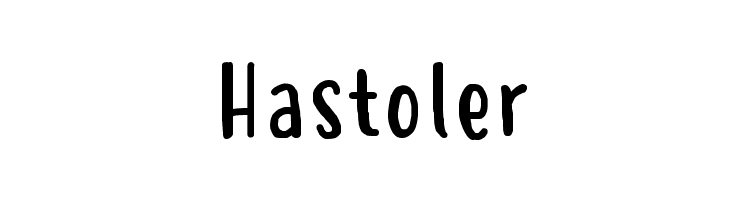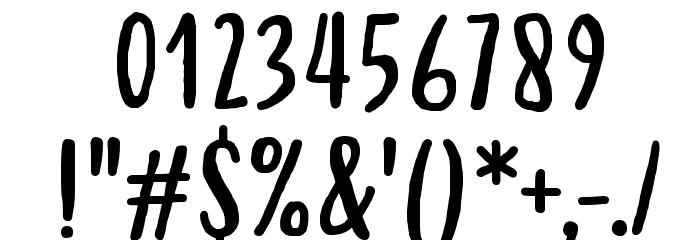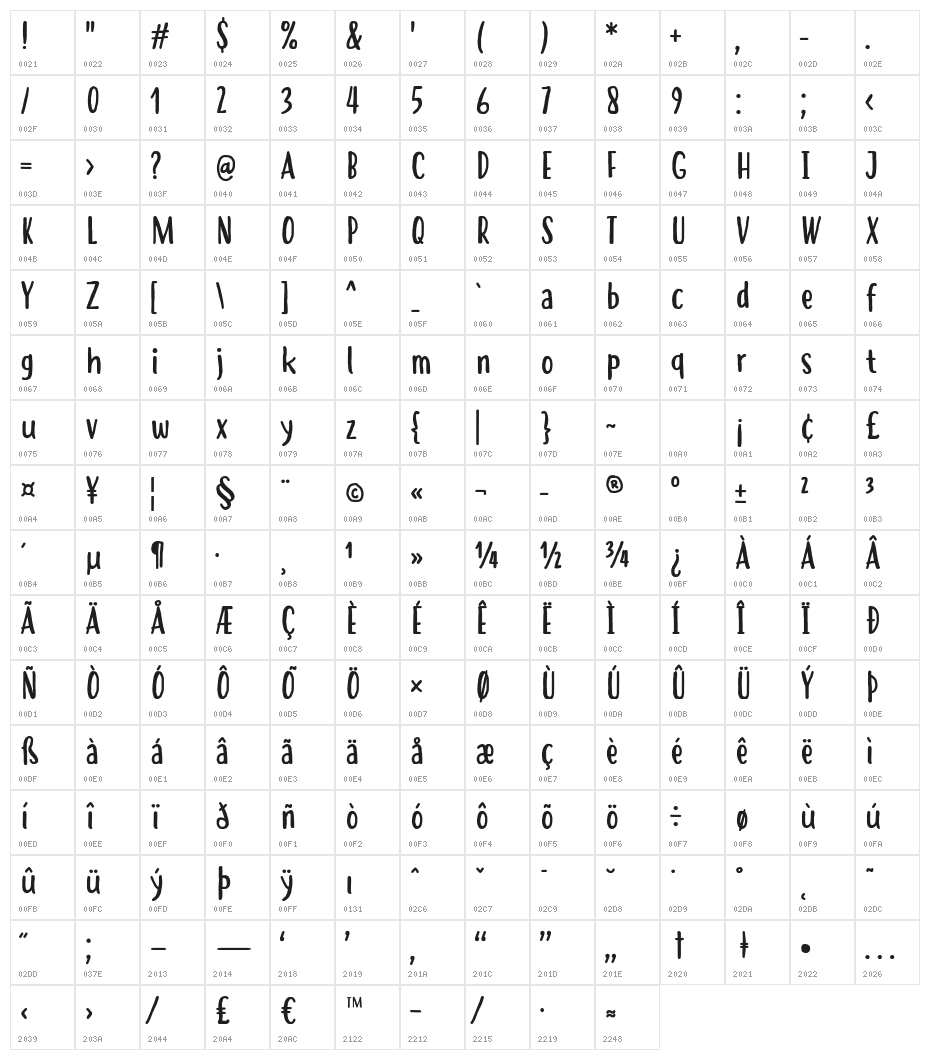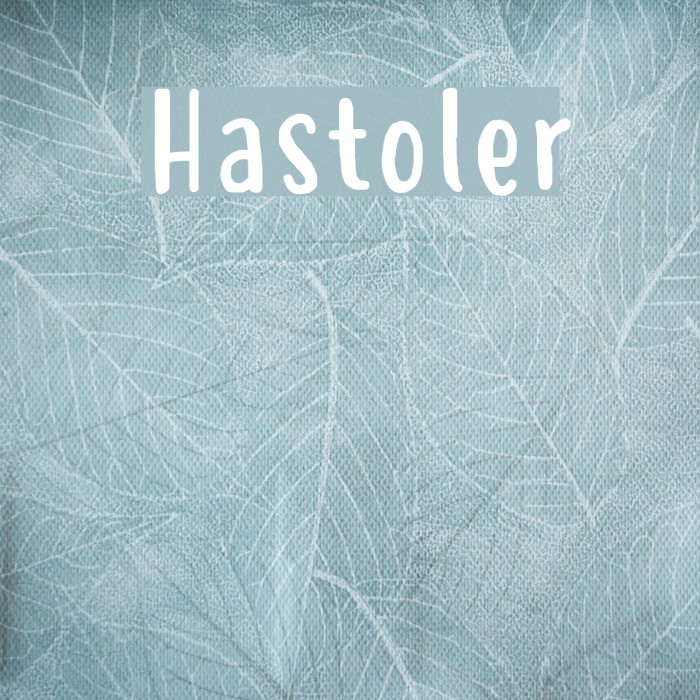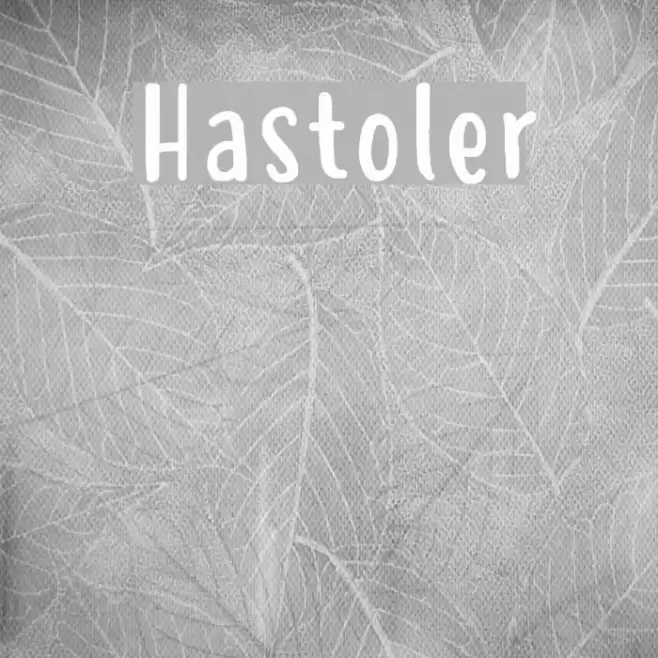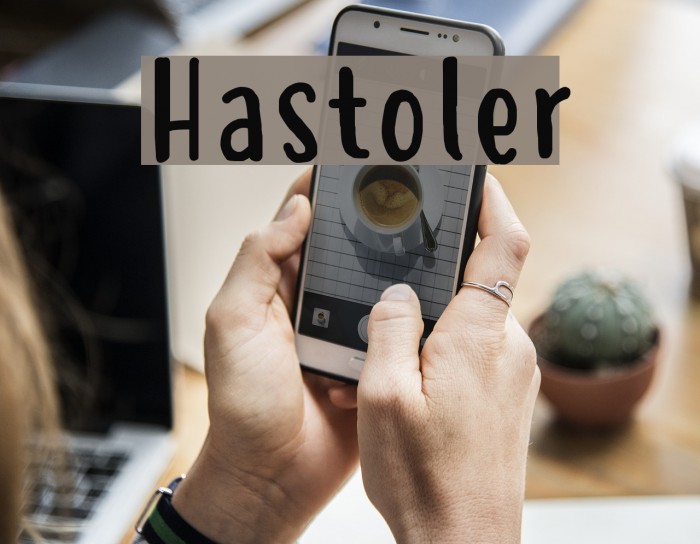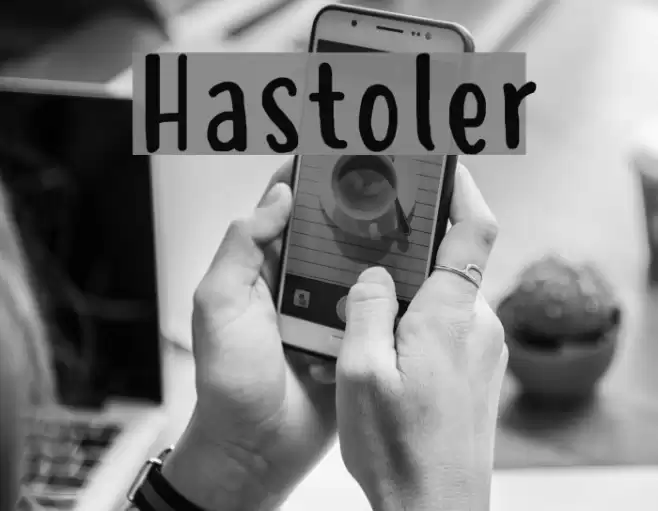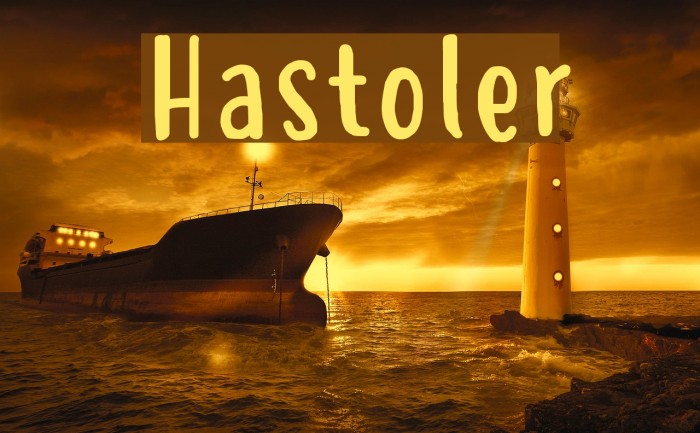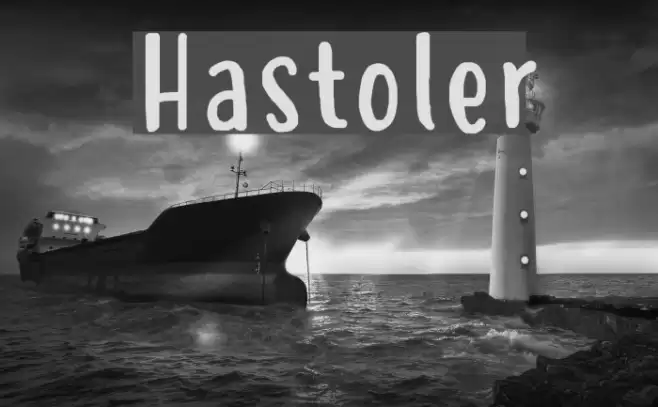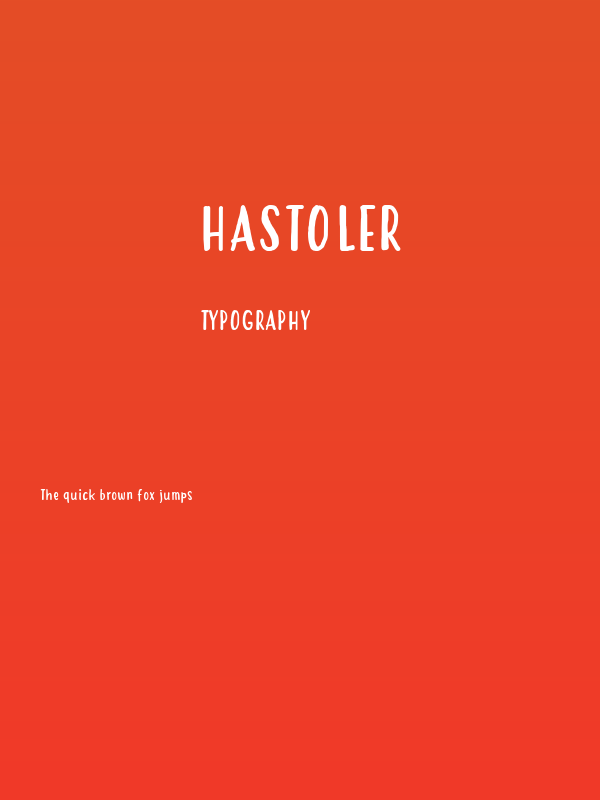
Hastoler Font
Hastoler Description
This font features a playful and casual handwritten style, characterized by its rounded and slightly irregular letterforms. The uppercase and lowercase letters maintain a consistent flow, giving a sense of movement and energy. The numbers and special characters follow the same informal aesthetic, making the font versatile for various creative projects. The strokes are moderately thick, providing good readability while maintaining a friendly and approachable appearance. This font is ideal for projects that require a personal touch, such as invitations, greeting cards, or playful branding materials.
| Proposed Projects | Ideal for invitations, greeting cards, playful branding, and creative projects. |